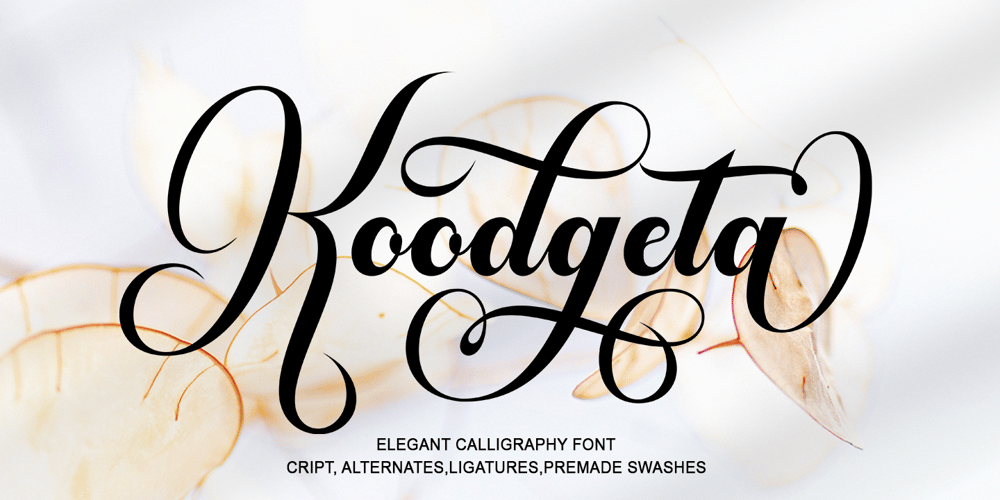
Koodgeta
Koodgeta font
Koodgeta Font Family was designed by Wais Alqarni and published by Ws Studio. Koodgeta contains 1 styles and family package options. Koodgeta Script is a calligraphy script font that comes with exquisite character changes, a kind of classic decorative copper script with a modern twist, designed with high detail for an elegant style.Koodgeta Script is attractive because it is smooth, clean, feminine, sensual, glamorous, simple and very easy to read, because there are many luxurious letter connections. I also offer a decent number of stylistic alternatives for some of the letters. Classic style is very suitable to be applied in various formal forms such as invitations, labels, restaurant menus, logos, fashion, make up, stationery, novels, magazines, books, greeting/wedding cards, packaging, labels or all kinds of advertising purposes. . . .Koodgeta Script has alternative Glyph characters, including multiple language support. With OpenType features with alternate styles and elegant binding. The OpenType features work automatically, but you can access them manually and for best results your creativity will be required in combining variations of these Glyphs.